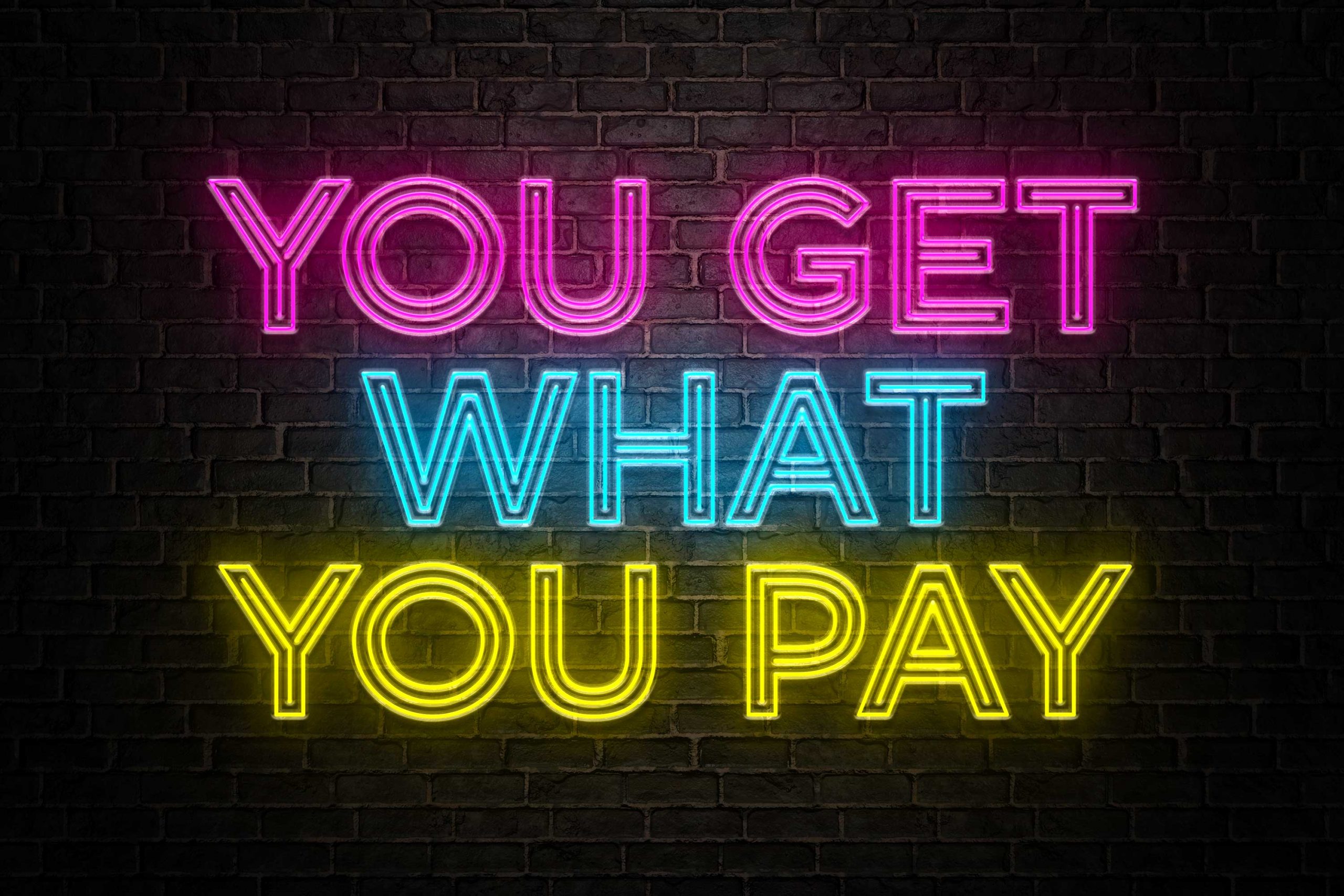
80S Neon Light Font
80S Neon Light Font. The 80s created a unique art style from the future. It has limited letterforms with the polished circular shape and, like real neon tubes, uses sections with open start and endpoints.
The neon lights in the 80s were all the rage. The package comes with a large collection of glyphs, end swashes, underline swashes, and a set of 10 neon glow photoshop actions that were created to be used with the font. 00 neon 80s version 1.
This 80s script font is perfect for logos, flyers, posters, and more. Neon fonts are always popular and if you are searching for that 80’s look and feel for your designs, you have come to the right place. This awesome light sign effect is one of the most fantastic neon text effects you will find out in the wild.
Neon desmon neon light font has a modern and elegant style. Neon tubes is a typeface inspired by real world neon light signs, it features minimal letter forms with smooth rounded corners and, true to real neon tubes, strictly uses lines with open start and end points. Neon 80s font is a contemporary and retro typeface based on a real neon light sign.
For each of the 80s font i tried to find the original or the closest match and provided a download link and an example of what you can do with these fonts. The 3d shapes in tandem with blue and yellow glowing create a powerful impression. Essqué productions designed and released the font on march 28, 2021.